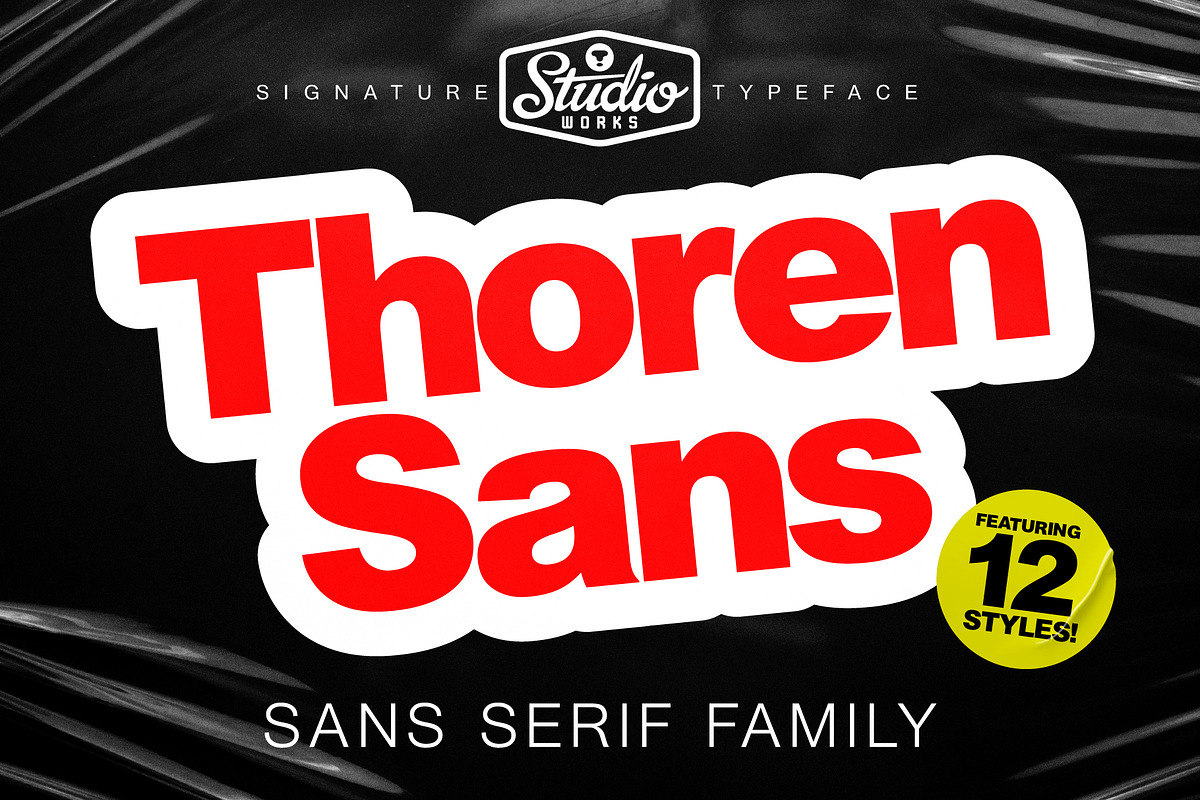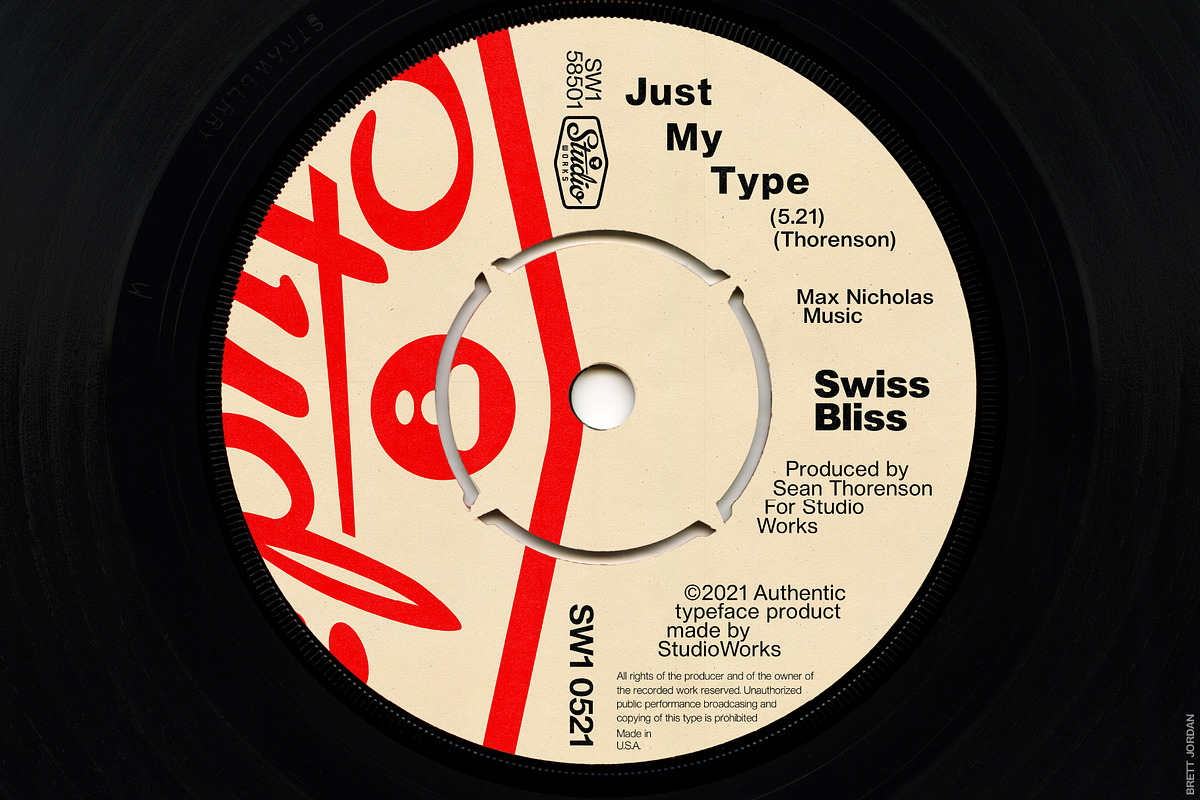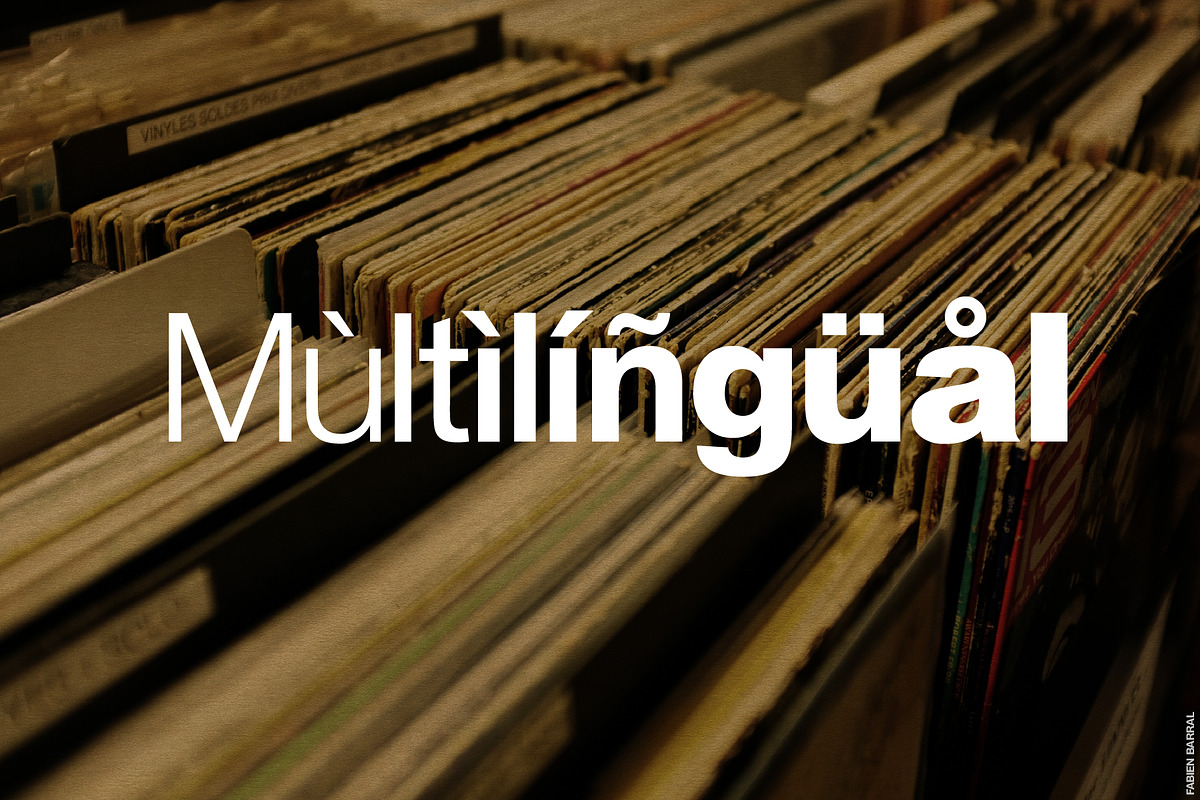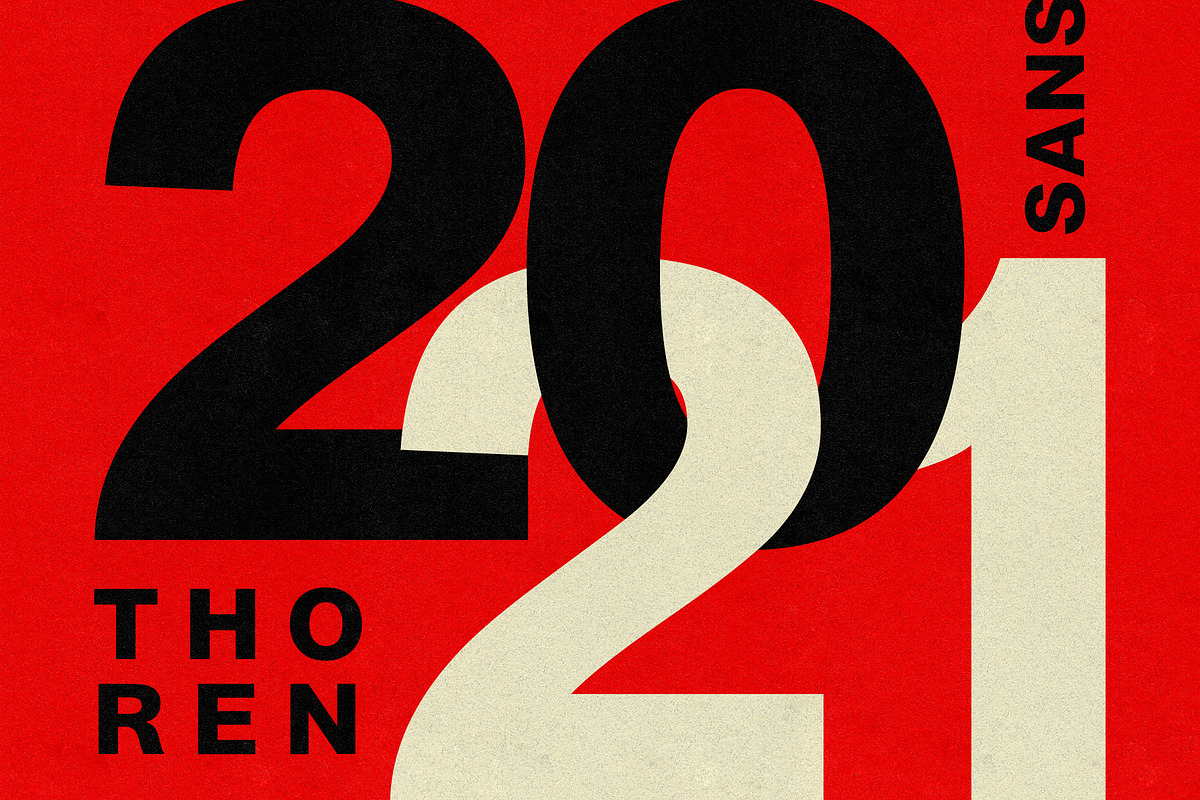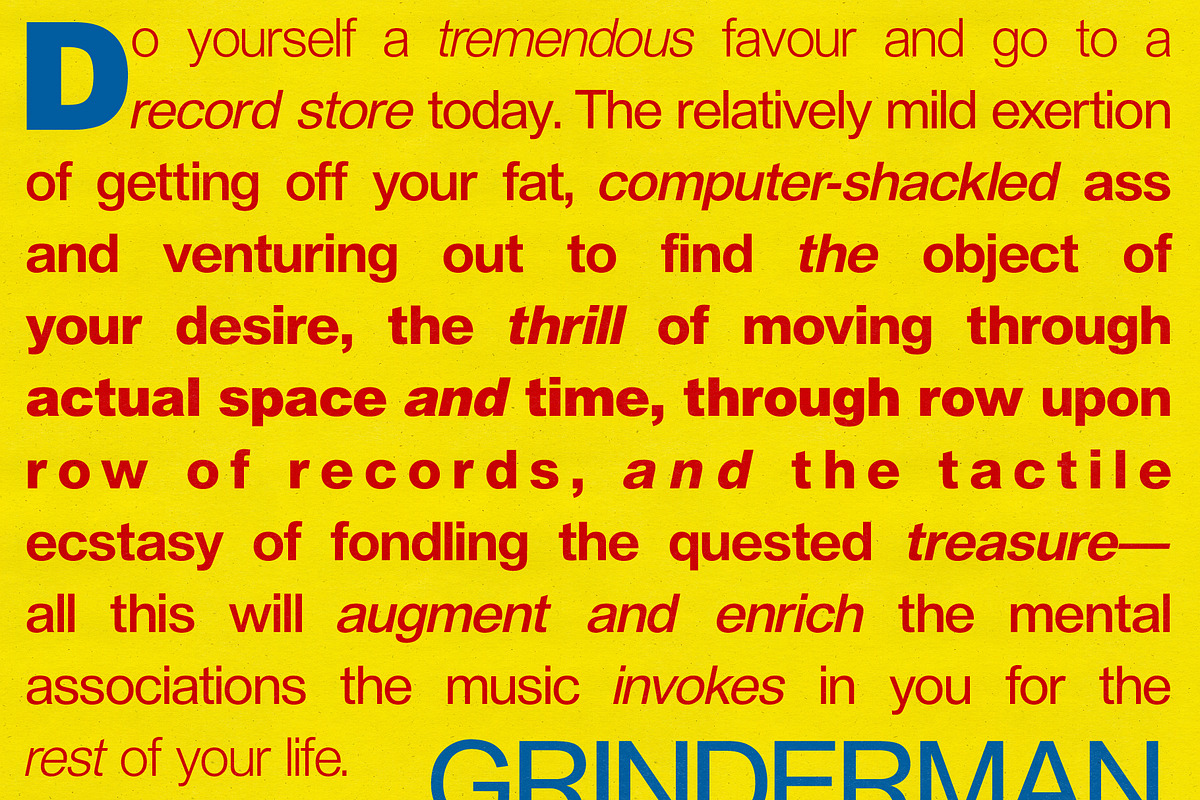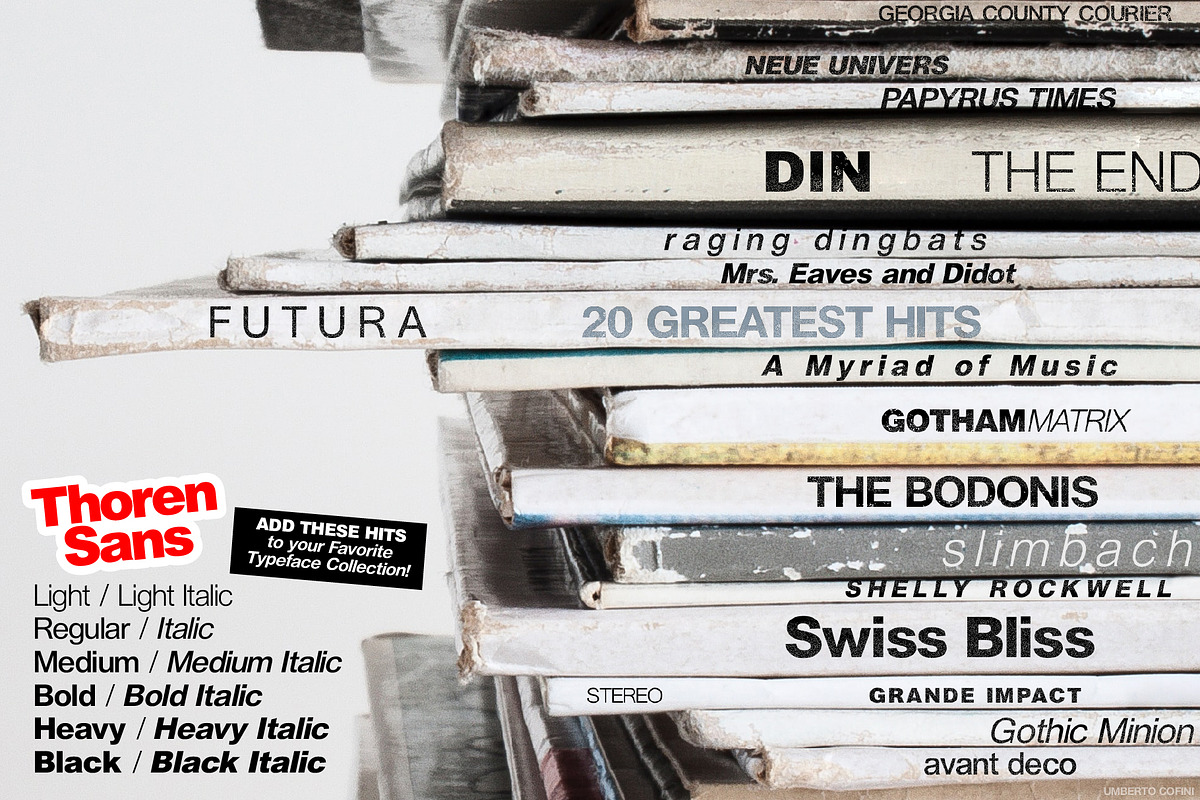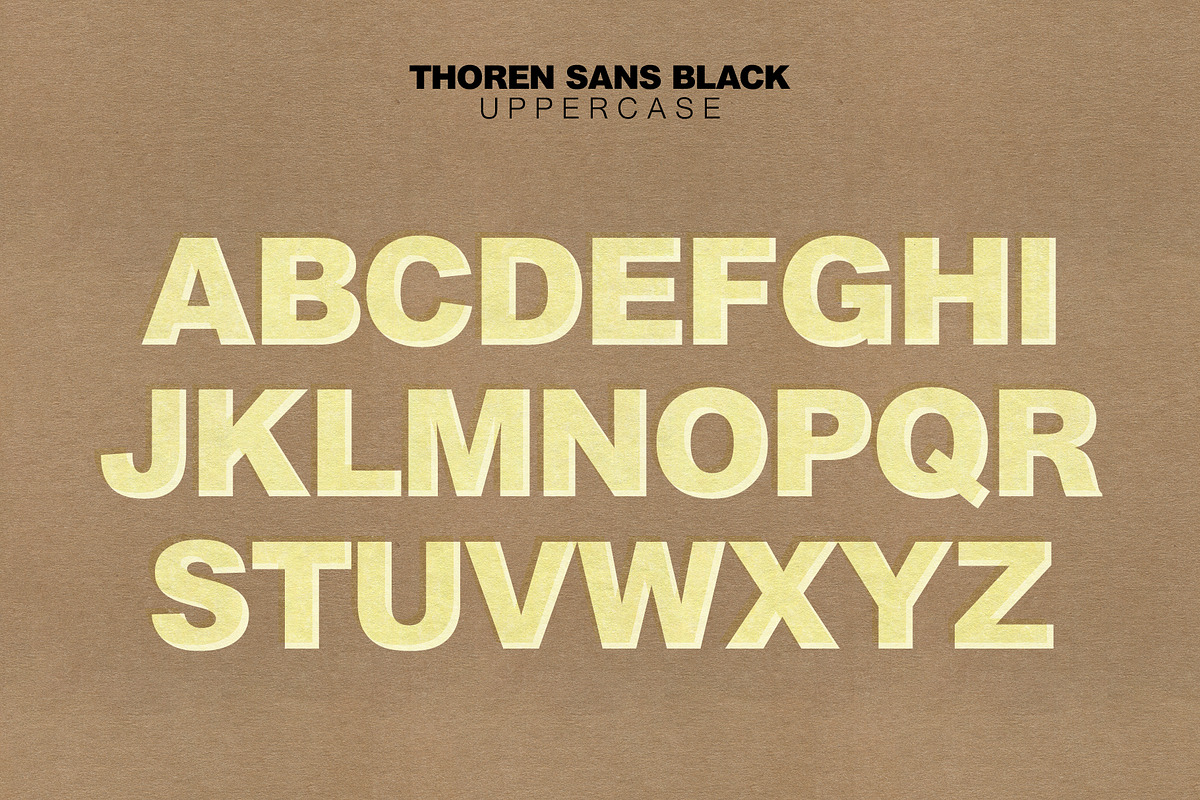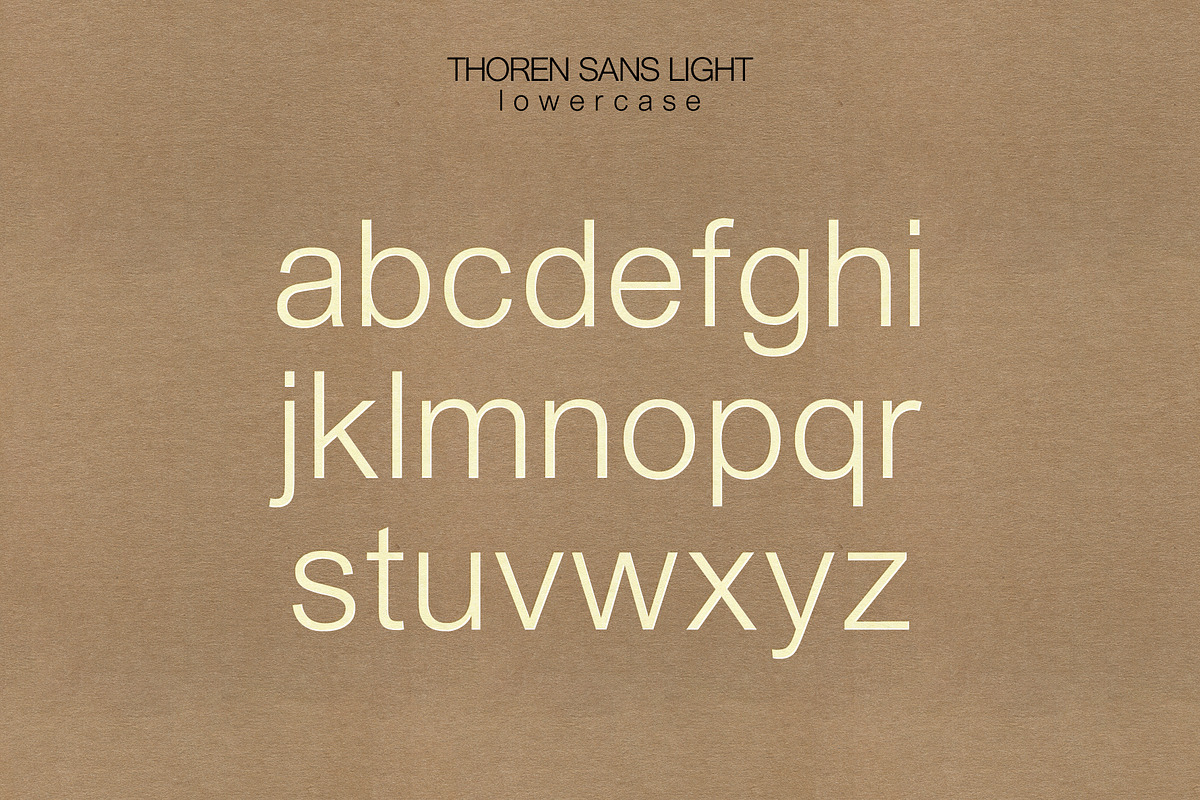
Thoren Sans | Sans Serif Type Family
StudioWorks proudly presents the •• T H O R E N •• S A N S •• F A M I L Y •• — a highly legible and versatile alternative gothic compilation of type. Looking to climb the charts in the serif-free design universe, Thoren Sans features efficient and utilitarian styling subtly inspired by timeless front-runners.
- TWELVE type styles (light, regular, medium, bold, heavy and black) both upright and italic
- Upper (A-Z) and lower case (a-z) characters
- Numbers (0-9)
- Standard punctuation and glyphs
Thorens Sans has enough range to be the feature performer in most any logo or poster design project but can easily be the supporting act for flashier display types. A reliable go-to for any type fan who aims to add to their collection of classic, sans serif fonts.